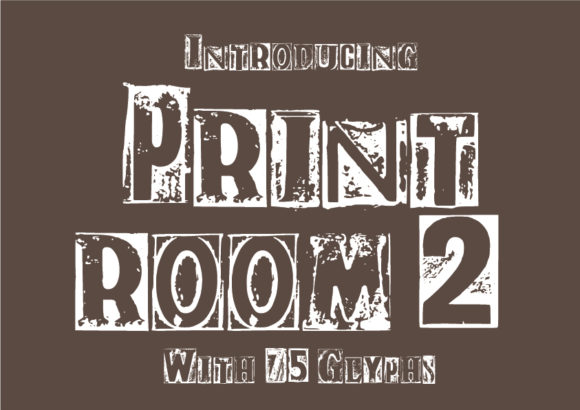
Looking for a vintage, turn of the century font with bags of character. Print Room 1 & 2 is a collection of wood and metal fonts usual found and used in a printing room. Large wooden block type is very fashionable to have around the home but can be expensive (the originals even more so!) so these sets will let you create your own messages and designs. Numbers, uppercase A-Z with some symbols will give you the chance to bring to life t-shirts, mugs, posters and prints. No need to find lots of different styles of fonts or arrange them as the font is set to go, combine it with Print Room 2 to mix it up even further.